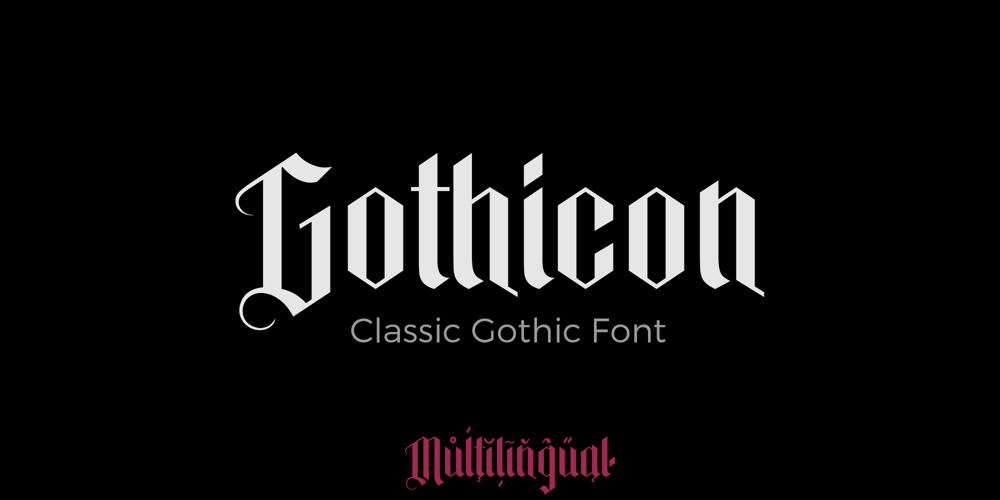
Gothicon
Gothicon font
Gothicon Font Family was designed by Dmytro Poliakh and published by Sentavio. Gothicon contains 1 styles and family package options. Gothicon is an authentic classic blackletter gothic vintage font.Multilingual support (All Latin Languages).Well to use in Poster, Vintage Labels & Badges, Headline, Packaging, Clothing Branding and much more.Please see also our Victorian Gothic font:https://www.myfonts.com/collections/luxgard-font-tadiar